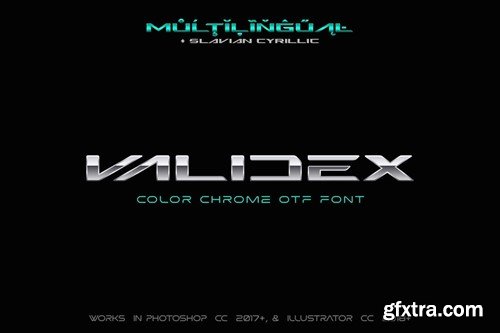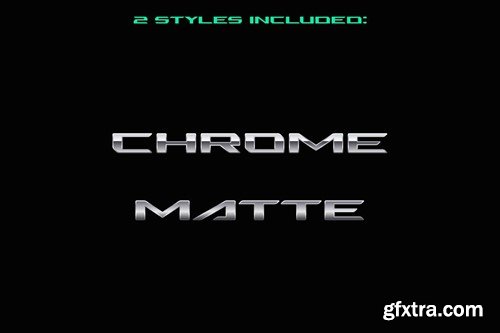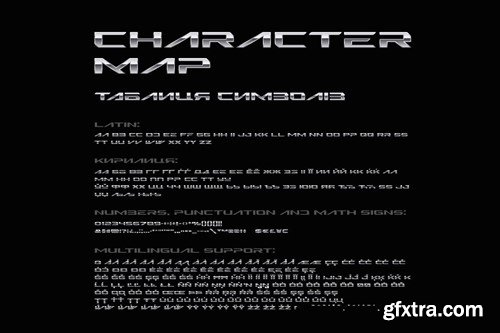
!!!_IMPORTANT: Please note that the font works in Photoshop CC2017 and higher and in Illustrator CC 2018 and higher only. Validex Metallic is COLOR VERSION of existing Validex Font: https://elements.envato.com/validex-technology-font-4NF8VZE You may play with letters changing theirs colors to make new and interesting font combinations (please see the preview image "Gameplay"). Supported Languages: Bosnian, Catalan, Czech, Danish, German, English, Spanish, Estonian, Finnish, French, Irish, Croatian, Hungarian, Icelandic, Italian, Lithuanian, Latvian, Maltese, Norwegian, Polish, Portuguese, Romanian, Slovak, Slovenian, Albanian, Swedish, Turkish, Ukrainian, Russian. --- ZIP includes: